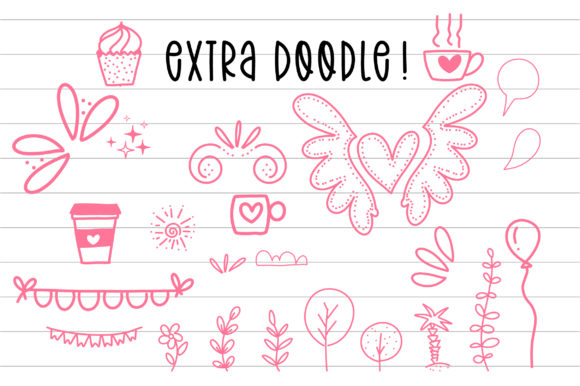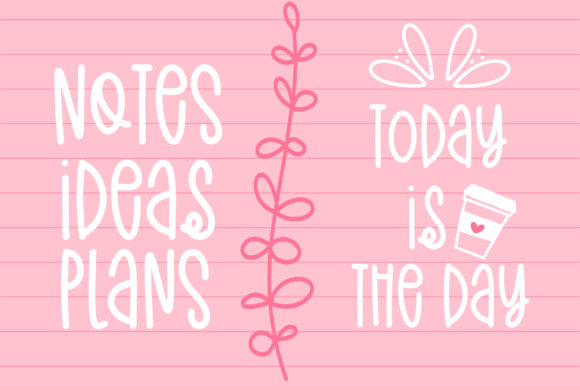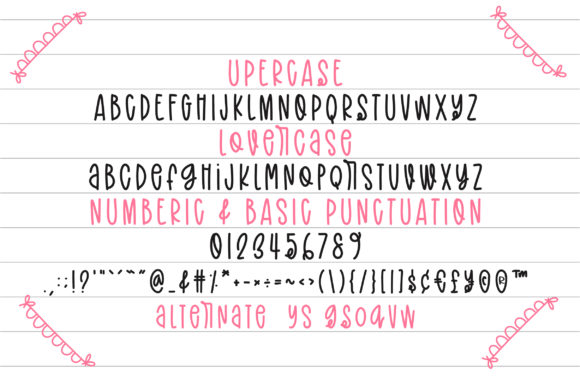
Hello New Abnormal Font
About Hello New Abnormal Font
Hello New Abnormal is a cheerful and friendly handwritten font. It brings with cute extra doodles and it will elevate a wide range of design projects to the highest level, be it branding, headings, wedding designs, invitations, signatures, logos, labels, and much more!